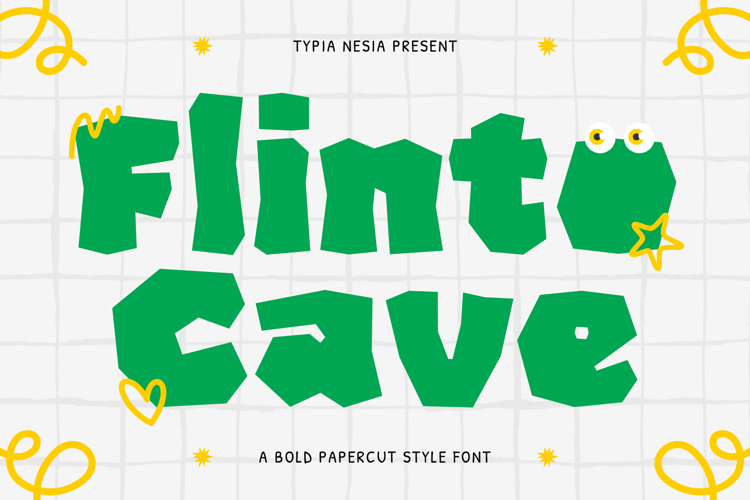
Flinto Cave - Bold Papercut / Paper Cutout Game Font
Flinto Cave - Bold Papercut / Paper Cutout Game Font - Modern Fun & Playful Cartoon Display Font
Flinto Cave is a distinctive, Bold and Chunky display font that perfectly captures the handmade charm and textured appearance of a Paper Cutout or Papercut Craft style. Highly Playful and approachable, this typeface is an excellent choice for book covers, educational materials, cartoon branding, packaging for toys, logo design for a cafe, coffee shop, or bakery, while its sturdy, fun aesthetic lends itself perfectly to titles for Game, arcade, retro-themed applications and any projects that require a touch of modern, fun and textured appearance of a Paper Cutout or Papercut Craft style. This font ensures your design is vibrant, memorable, and full of character.